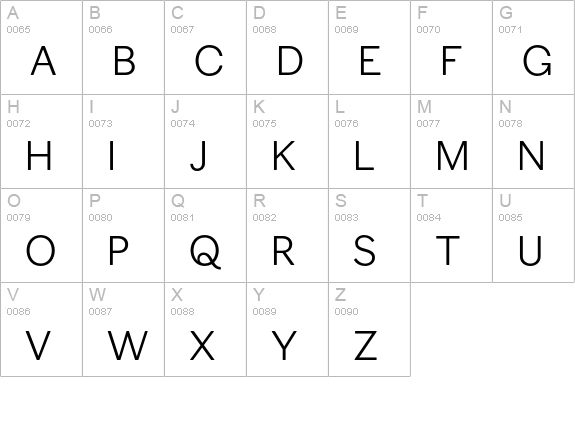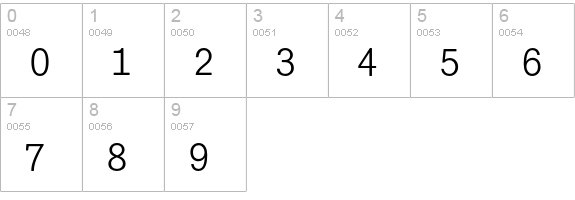
Figgins Sans Font Details
Figgins Sans is a modern and versatile typeface that exudes elegance and sophistication. With its clean lines and balanced proportions, this font is perfect for a wide range of design projects, from branding to editorial content. The timeless appeal of Figgins Sans makes it a go-to choice for designers looking to achieve a timeless and classic look. What sets Figgins Sans apart is not only its aesthetic appeal but also its accessibility. This font is available for free download at FontsMarket.com, allowing designers to easily incorporate it into their projects without breaking the budget. Whether you're working on a personal project or a commercial design, Figgins Sans provides a stylish and professional touch that will elevate your work to the next level. Experience the beauty and versatility of Figgins Sans today by downloading it for free at FontsMarket.com. Let this exquisite typeface inspire your creativity and bring your design visions to life with its timeless charm and modern flair.